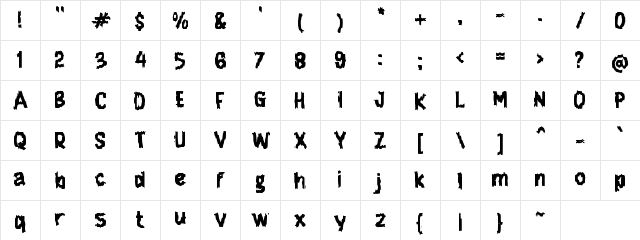
f Fatamor Regular Free Font
f Fatamor Regular
Designer: Wahyu Eka Prasetya
Design Context for f Fatamor
f Fatamor is a composed and adaptable typeface that performs quietly and consistently across a wide range of design contexts.